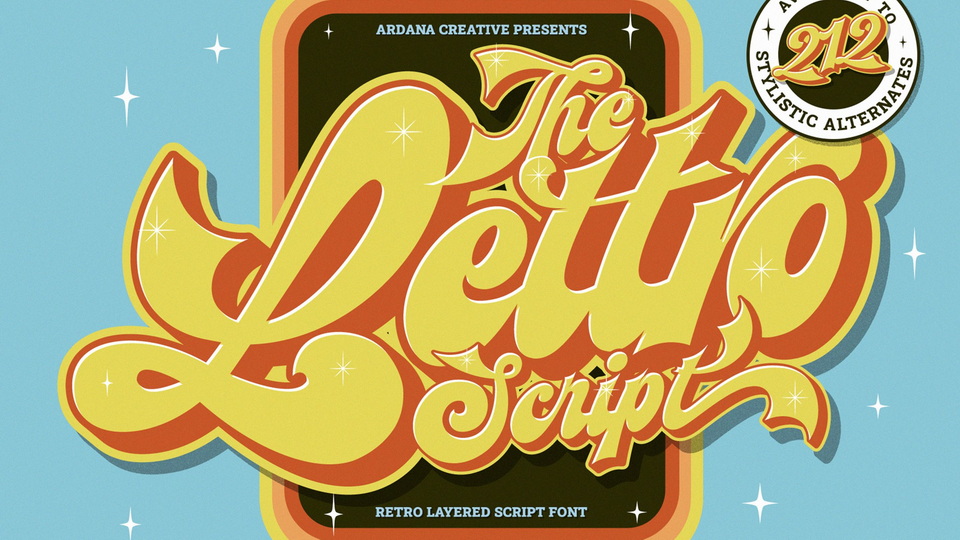
Download Lettro font, an exquisite bold script typeface inspired by the retro design from 70-80-ish. Lettro is perfectly fitted to give you more contrast, more bold look of the title.